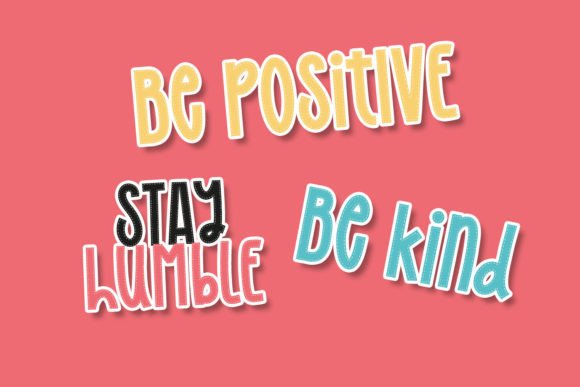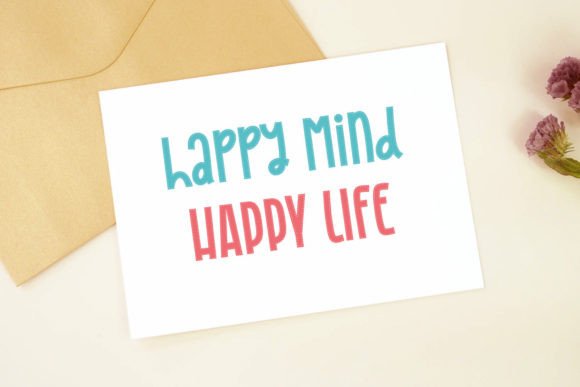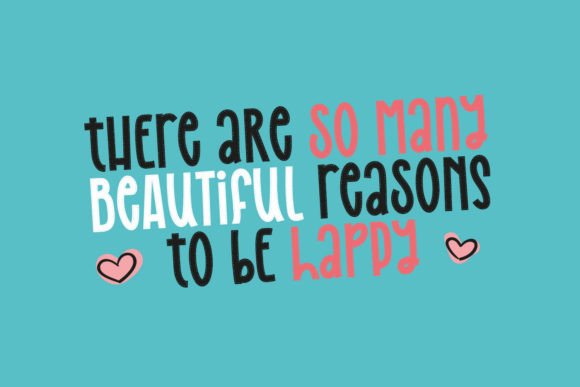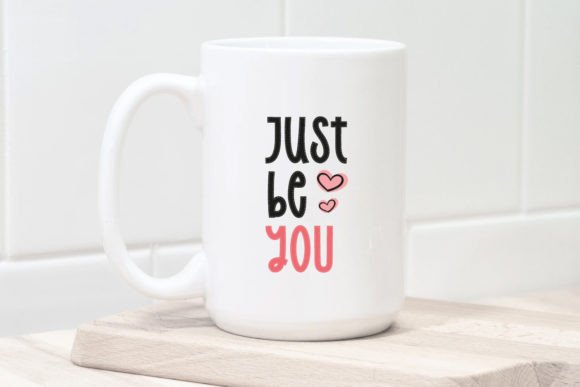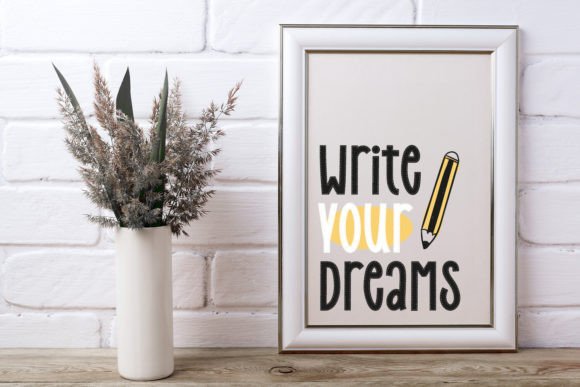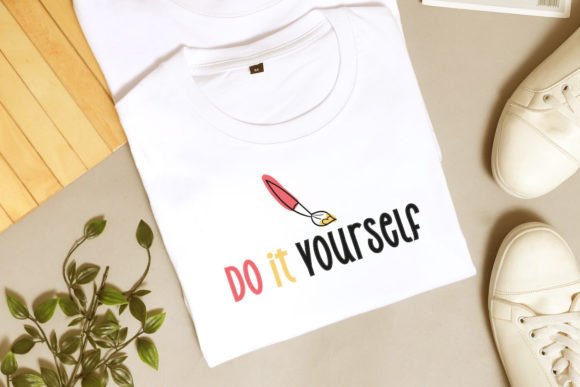
Crafting Stitch Font: Elevate Your Designs with Elegance and Sophistication
In the world of typography, few fonts manage to strike a balance between elegance and approachability. Crafting Stitch, a delicate and charming display font, is one such gem that has captured the hearts of designers and crafters alike. With its light weight, condensed style, and refined features, Crafting Stitch is the perfect addition to your design arsenal.
Lightweight yet Elegant
Crafting Stitch boasts a light weight that exudes elegance, making it an ideal choice for designs where sophistication is paramount. Its slender lines and delicate curves create a sense of refinement, perfect for projects that require a touch of luxury. Whether you’re designing a high-end brand logo, a fashion editorial, or a wedding invitation, Crafting Stitch’s lightweight elegance is sure to impress.
Condensed Style for Efficient Design
One of the standout features of Crafting Stitch is its condensed style. This allows designers to make efficient use of space, making it perfect for tight layouts and intricate designs. The condensed style also ensures that your text remains clear and legible, even in smaller sizes. This feature is particularly useful for designers working on projects with limited space, such as business cards, brochures, or social media graphics.
Smooth Appearance with Low Contrast
Crafting Stitch’s low contrast between strokes ensures a smooth appearance, enhancing its refined look. The subtle transition between thick and thin lines creates a sense of harmony, making it perfect for designs that require a touch of sophistication. This feature also helps to reduce visual noise, making your text more readable and engaging.
Rounded Shapes for a Soft Touch
One of the most distinctive features of Crafting Stitch is its rounded shapes. These soft curves add a touch of approachability to your designs, making them more relatable and engaging. The rounded shapes also help to create a sense of warmth, perfect for designs that require a human touch. This feature is particularly useful for designers working on projects that require a more personal and emotive approach, such as branding, packaging, or editorial layouts.
Perfect for a Variety of Designs
Crafting Stitch’s versatility makes it perfect for a wide range of designs, including:
- Media and Editorial Layouts: Crafting Stitch’s elegant and refined features make it perfect for editorial layouts, such as magazine articles, blog posts, and newspaper headlines.
- Branding and Packaging: The font’s lightweight elegance and condensed style make it ideal for branding and packaging designs, such as logos, labels, and product packaging.
- Wedding and Event Invitations: Crafting Stitch’s sophisticated and refined features make it perfect for wedding and event invitations, adding a touch of luxury and elegance to your designs.
- Digital and Social Media Graphics: The font’s smooth appearance and rounded shapes make it perfect for digital and social media graphics, such as social media posts, graphics, and animations.
Crafting Stitch is a delicate and charming display font that is sure to elevate your designs with elegance and sophistication. Its lightweight yet elegant features, condensed style, and refined strokes make it perfect for a wide range of designs. Whether you’re a designer, crafter, or DIY enthusiast, Crafting Stitch is a must-have font in your design arsenal. So why wait? Get crafting with Crafting Stitch today and take your designs to the next level!